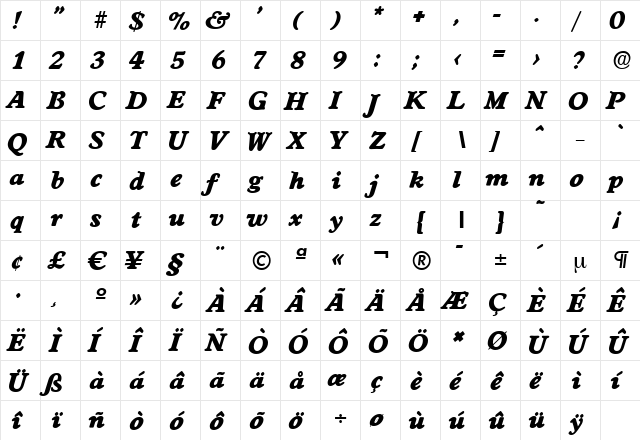
WorcesterSerial-Heavy Italic
Design Context for WorcesterSerial-Heavy Typeface
WorcesterSerial-Heavy is a composed and adaptable typeface that performs quietly and consistently across a wide range of design contexts. Its italic angle brings a sense of urgency and motion to the letterforms.
Pro Tip: Try WorcesterSerial-Heavy for annotation and caption copy alongside an upright companion — the contrast in angle creates a dynamic but ordered typographic system.